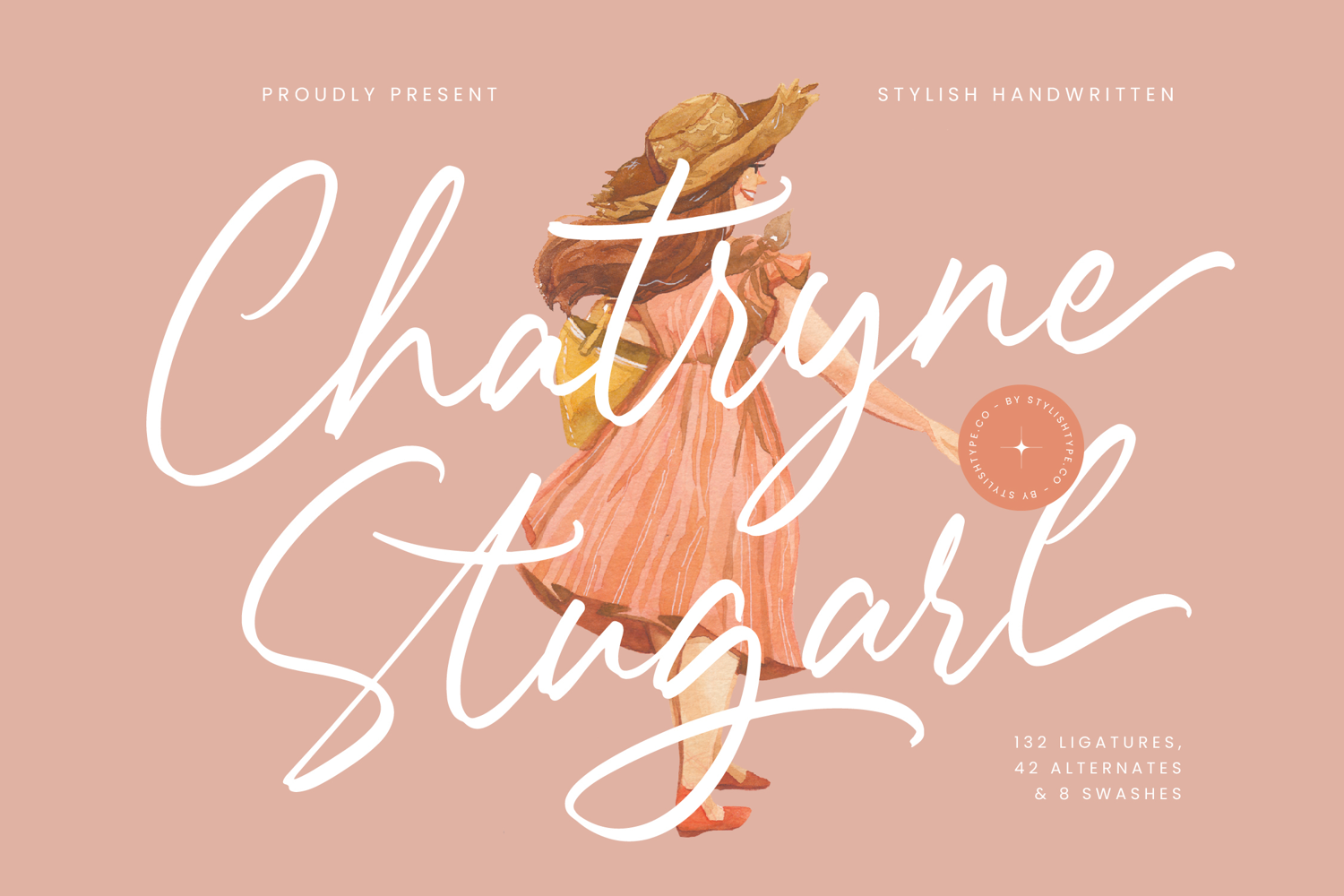
Chatryne Stugarl - Stylish Handwritten
Chatryne Stugarl
Chatryne Stugarl Italic
Chatryne Stugarl is equipped with an extensive suite of OpenType features, including 132 ligatures and numerous stylistic alternates and swashes. This robust feature set allows designers to craft truly unique word shapes, eliminating repetition and providing the visual fluidity needed to simulate genuine, personalized handwriting across any project, from digital media to large-format prints.